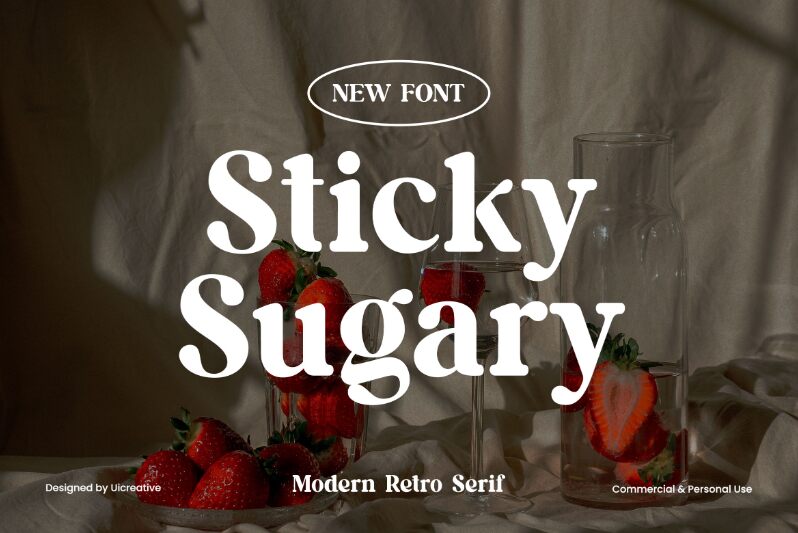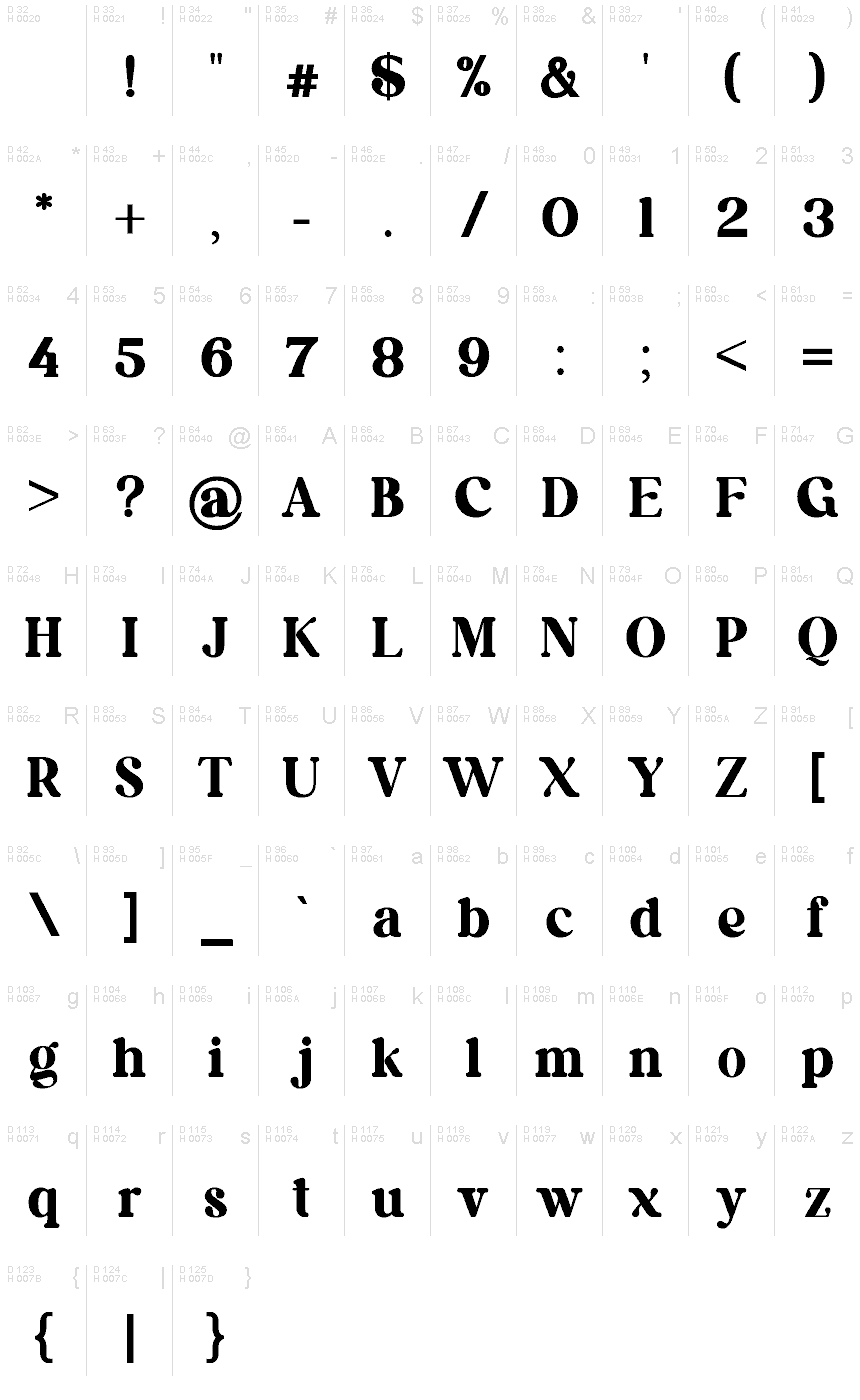
Sticky Sugary font by UI Creative has an endlessly expressive and cheerful style that makes it quite attention-grabbing. This retro-inspired and classic font uses bold serifs which limit its readability but maximize its ability to emphasize text and give projects the wow factor they deserve. Visually appealing, the letters are either rounded or have curved ends with subtle pointed elements.